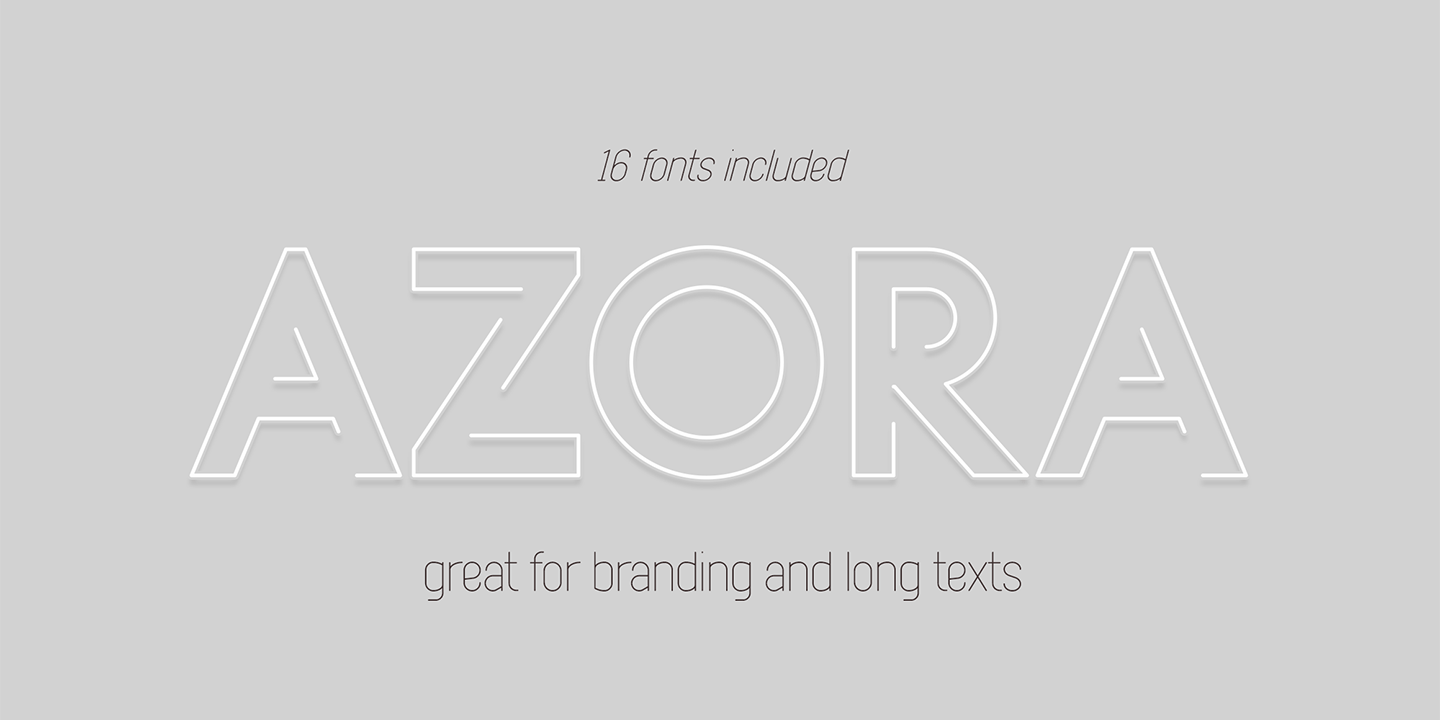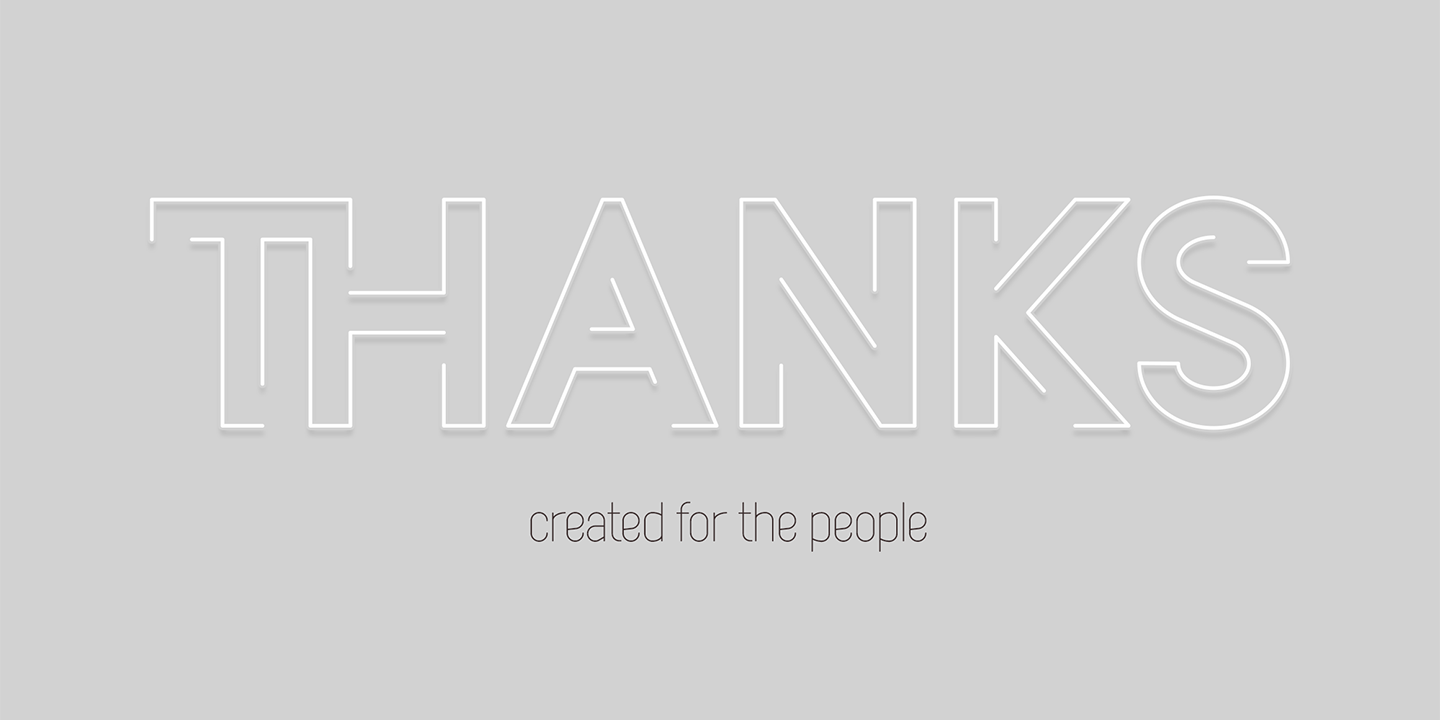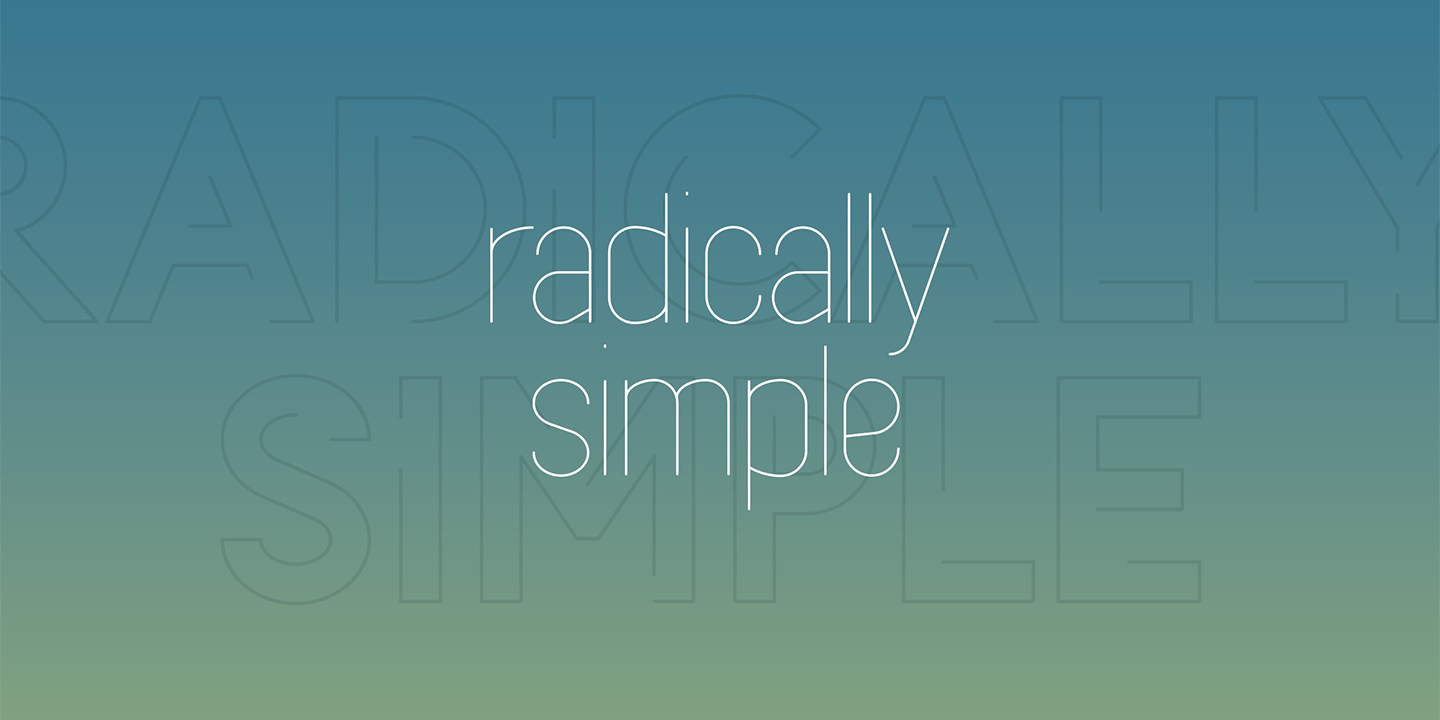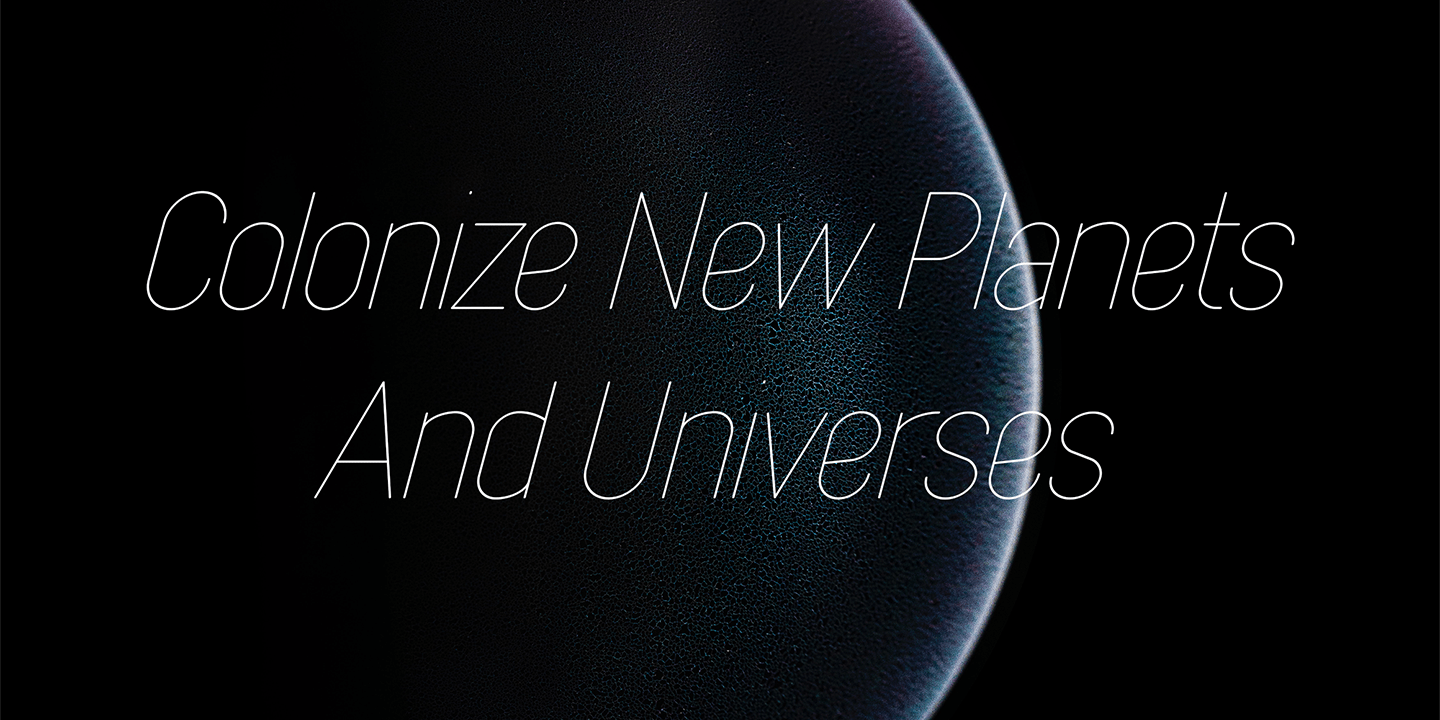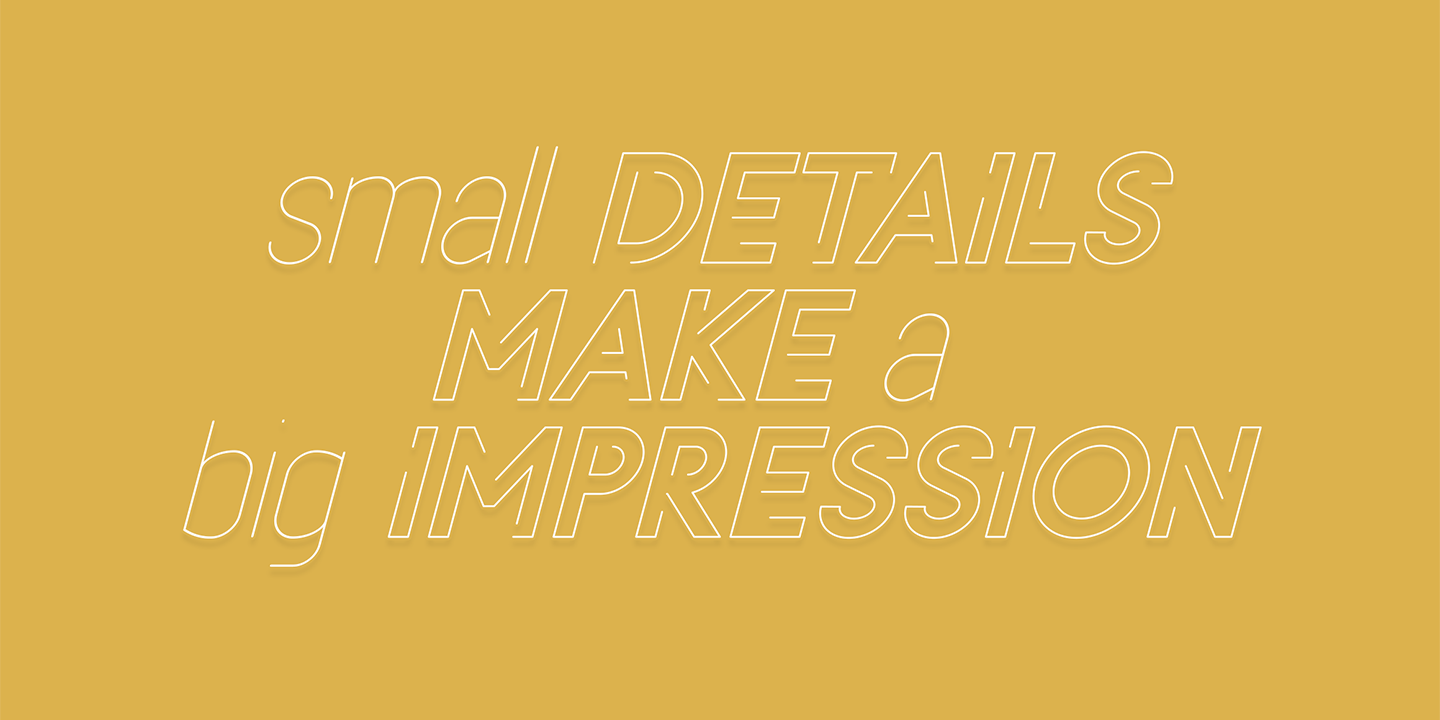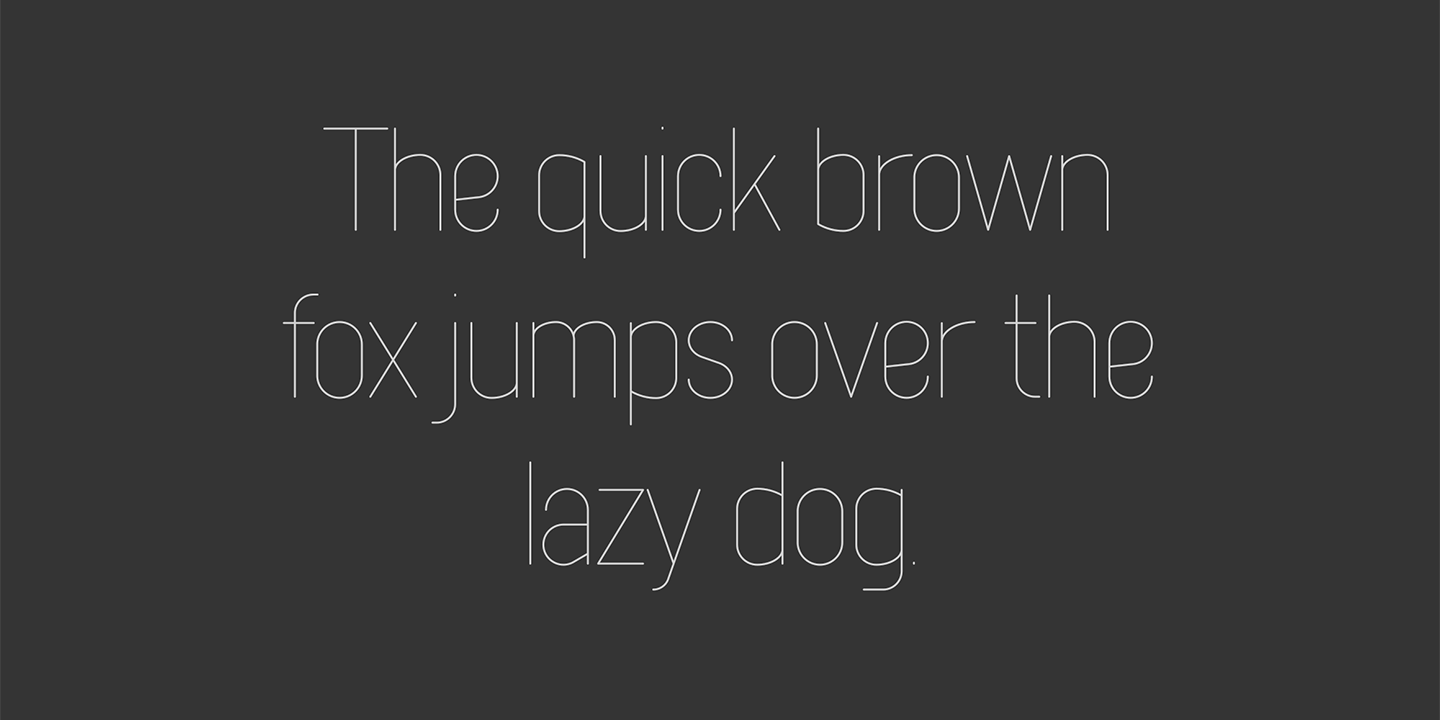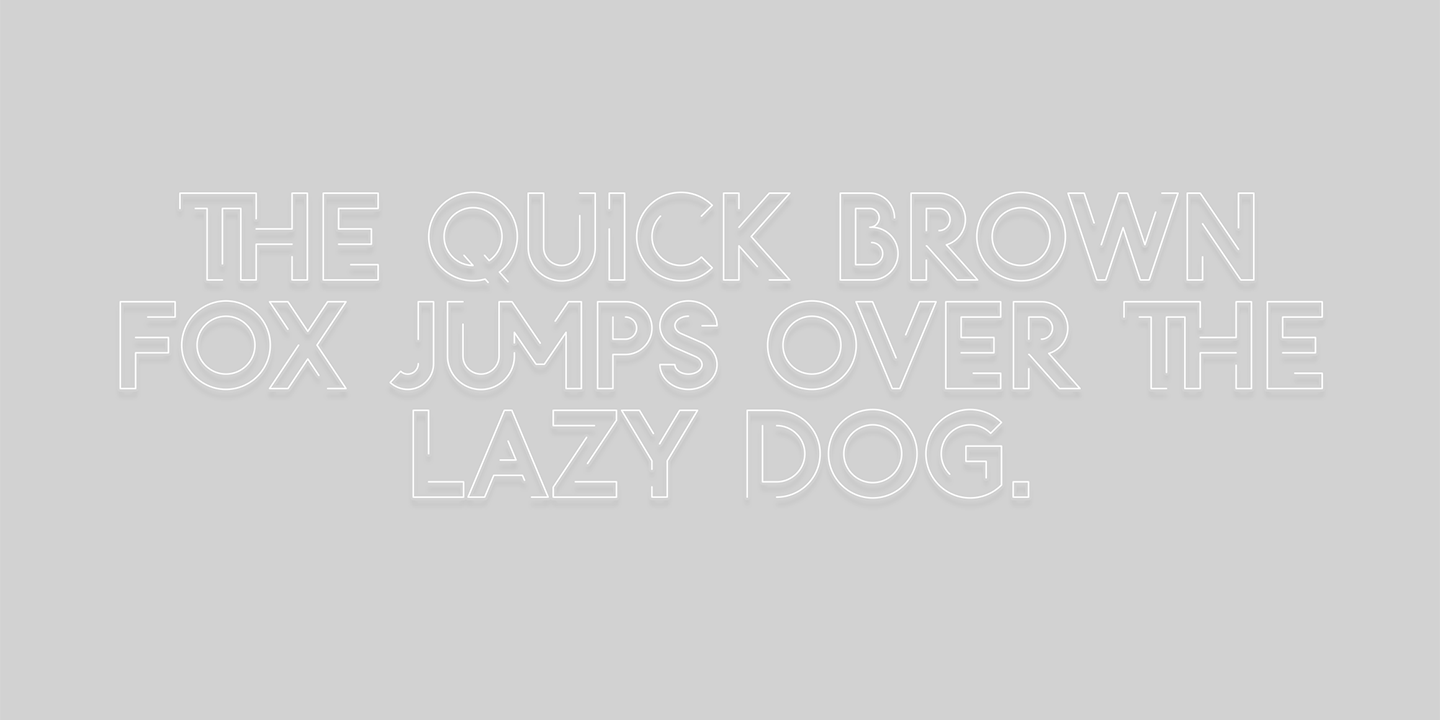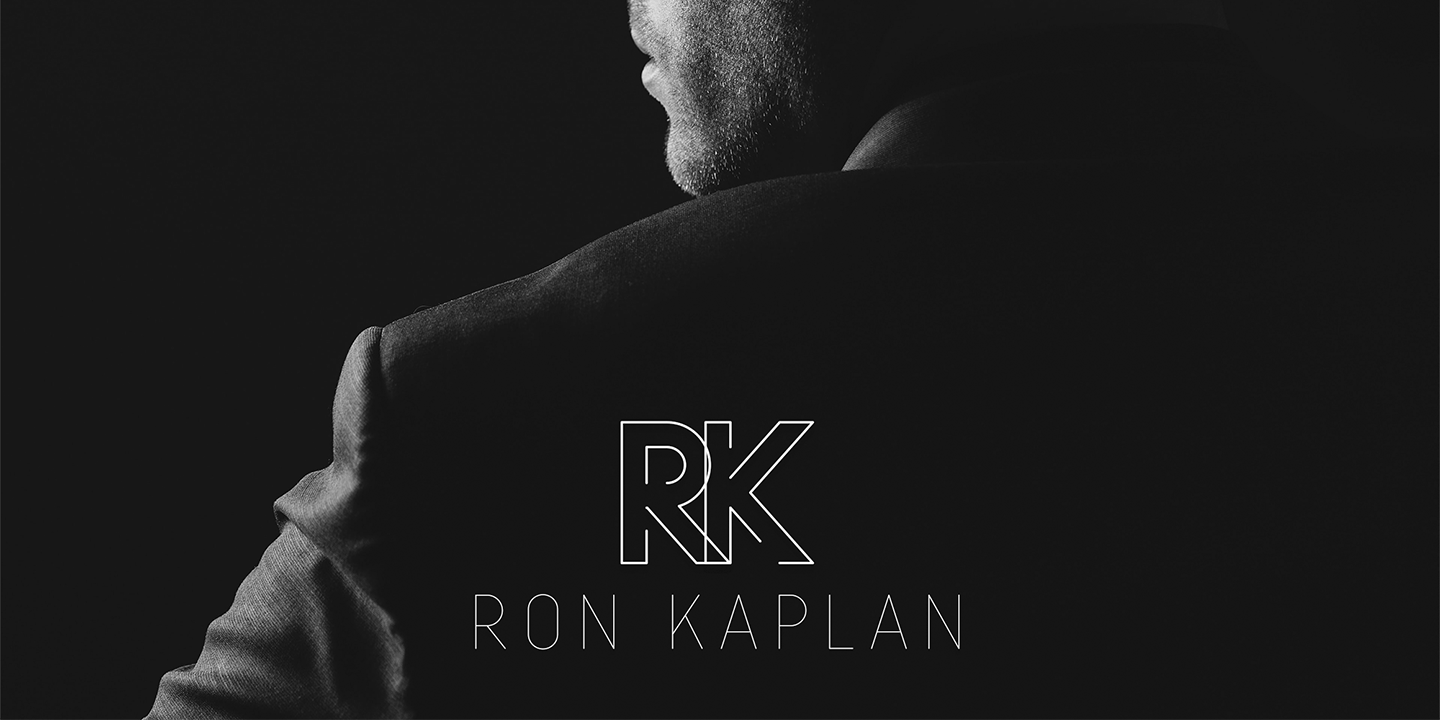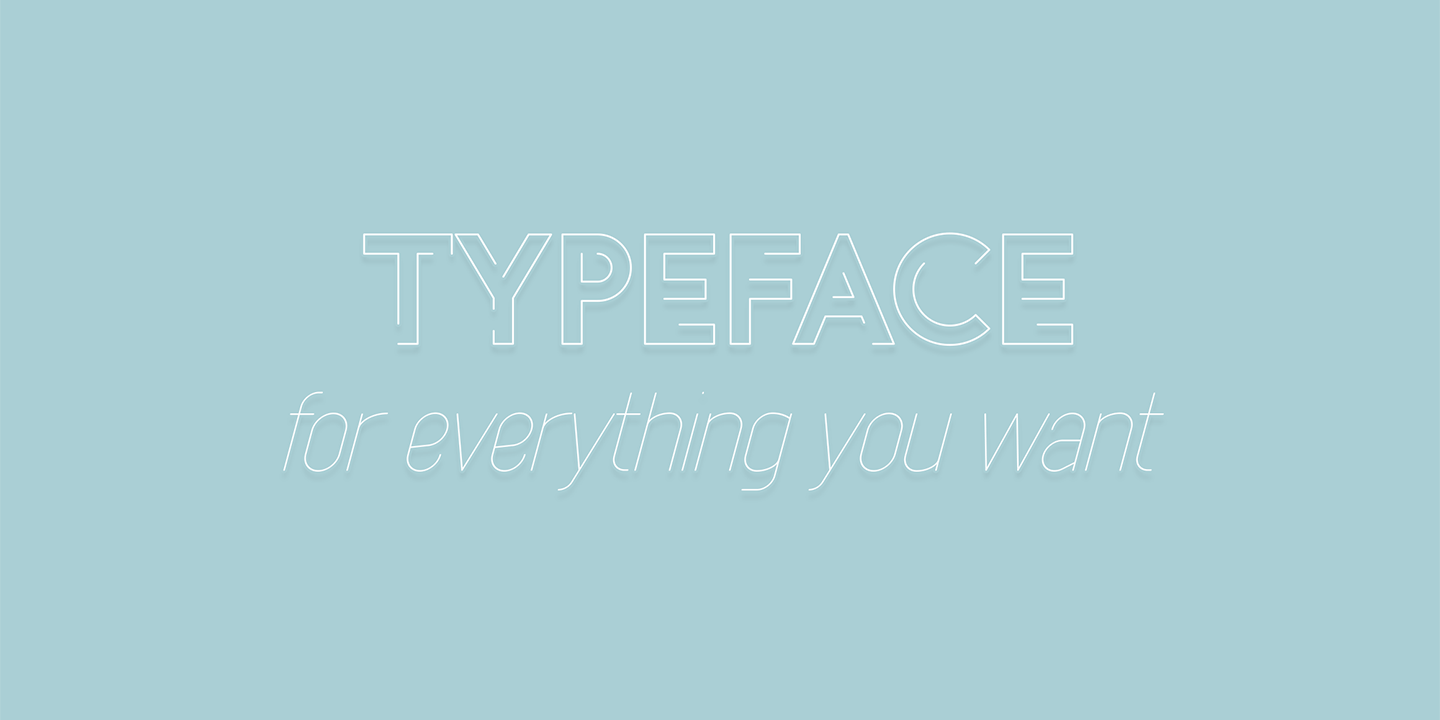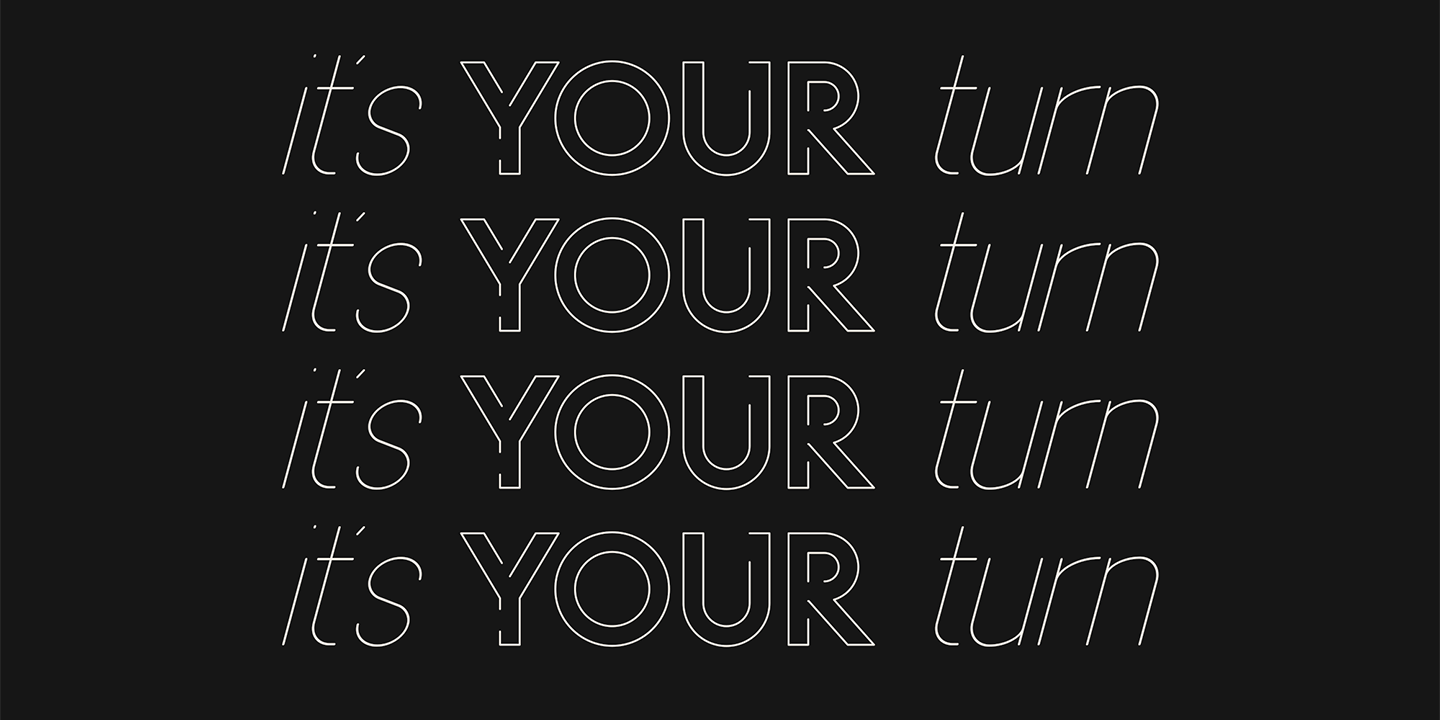
Azora
Introducing Azora typeface - 16 fonts
Elevate Your Typography with Azora - The Futuristic and Casual Typeface with 16 Fonts, 87 Language Support and Ligature Glyphs for Unique Designs.
FEATURES
• Uppercase, lowercase, numeral, punctuation & Symbol
• ligature glyphs
• Display font - regular and italic
• 7 sans serif weights - regular and italics